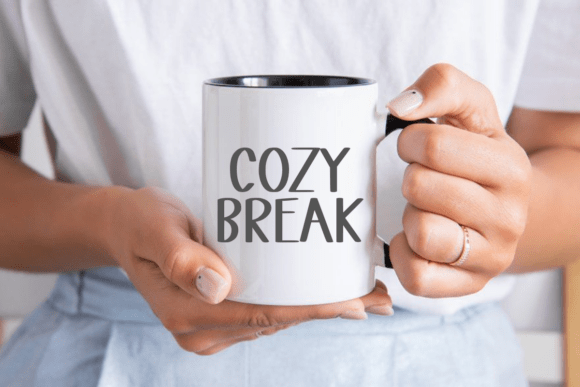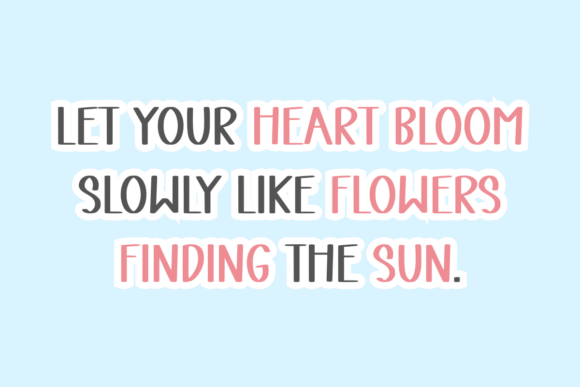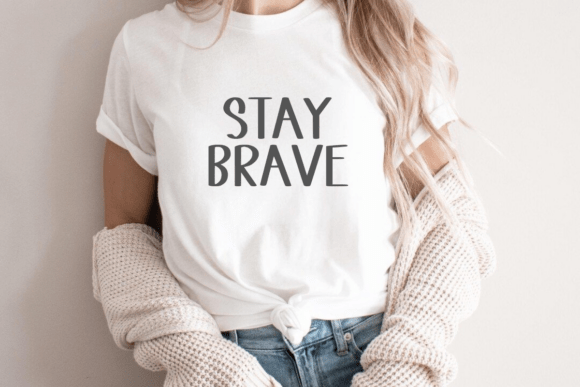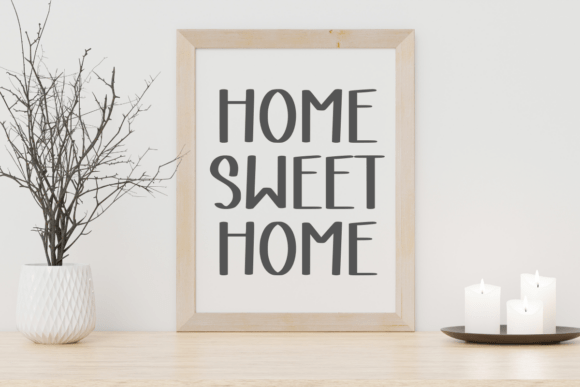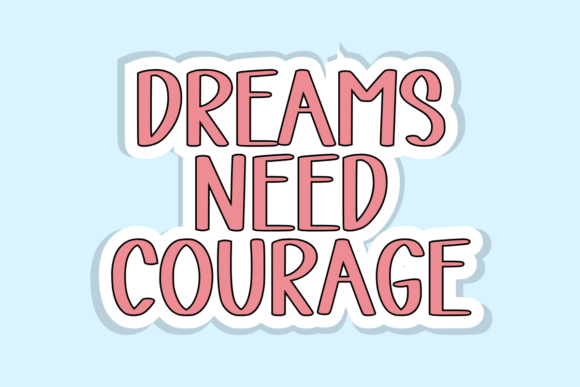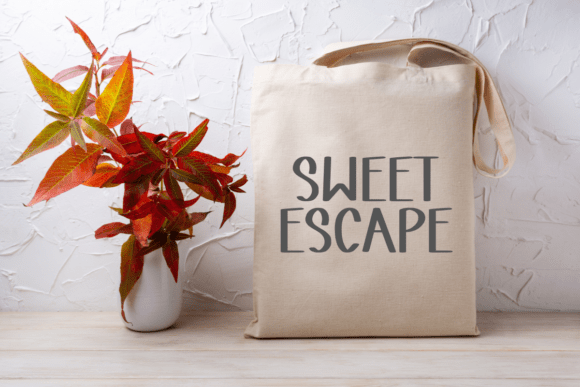
Introducing Heartbeat Handwritten Font: The Perfect Choice for Crafty Designs
Are you a crafter, designer, or DIY enthusiast looking for a font that adds a personal touch to your projects? Look no further than Heartbeat Handwritten Font, a charming sans serif handwriting font that exudes a soft, friendly, and natural look. In this article, we’ll dive into the features and benefits of this lovely font, and explore how it can elevate your craft projects, planners, stickers, and more.
A Warm Handcrafted Feeling
Heartbeat Handwritten Font is designed to bring a warm, handcrafted feeling to your designs. Its simple strokes and smooth curves create a gentle, approachable aesthetic that’s perfect for a variety of applications. Whether you’re creating craft projects, planners, stickers, kids’ worksheets, classroom printables, or DIY designs, this font is sure to add a touch of personality and whimsy.
Perfect for Crafting Moms and Designers
Crafting moms and designers will love Heartbeat Handwritten Font for its adorable handwritten style and versatility. This font is ideal for creating a range of projects, from quotes and greeting cards to kids’ labels, coloring pages, worksheets, bullet journals, scrapbooks, and playful graphic projects. With Heartbeat Handwritten Font, you can add a personal touch to your designs and make them stand out.
Ease of Use
One of the best things about Heartbeat Handwritten Font is its ease of use. The font’s simple strokes and smooth curves make it easy to cut using popular cutting machines like Cricut and Silhouette. This means you can quickly and easily create custom designs for your craft projects, without spending hours on complicated cutting or editing.
Applications for Heartbeat Handwritten Font
So, what can you create with Heartbeat Handwritten Font? The possibilities are endless! Here are some ideas to get you started:
• Quotes and posters: Add a personal touch to your inspirational quotes and posters with this charming font.
• Greeting cards: Create custom greeting cards for special occasions, like birthdays, holidays, and more.
• Kids’ labels: Use Heartbeat Handwritten Font to create fun and colorful labels for kids’ projects, folders, and more.
• Coloring pages: Add a touch of whimsy to your coloring pages with this adorable font.
• Worksheets: Create engaging and interactive worksheets for kids with Heartbeat Handwritten Font.
• Bullet journals: Use this font to add a personal touch to your bullet journal or planner.
• Scrapbooks: Create beautiful and personalized scrapbooks with Heartbeat Handwritten Font.
• Playful graphic projects: Use this font to add a touch of personality to your graphic projects, like posters, flyers, and more.
Why Choose Heartbeat Handwritten Font?
So, why choose Heartbeat Handwritten Font over other fonts? Here are just a few reasons:
• Unique and charming aesthetic: Heartbeat Handwritten Font has a one-of-a-kind look that’s sure to make your designs stand out.
• Versatility: This font can be used for a wide range of projects, from craft projects to graphic designs.
• Ease of use: Heartbeat Handwritten Font is easy to cut and edit, making it perfect for designers and crafters of all levels.
• Personal touch: This font adds a warm, handcrafted feeling to your designs, making them feel more personal and engaging.
Author Nuhatype
In conclusion, Heartbeat Handwritten Font is a charming and versatile font that’s perfect for crafty designers, moms, and DIY enthusiasts. With its soft, friendly, and natural look, this font is sure to add a personal touch to your projects and make them stand out. Whether you’re creating craft projects, planners, stickers, or graphic designs, Heartbeat Handwritten Font is the perfect choice. So why wait? Download Heartbeat Handwritten Font today and start creating beautiful, personalized designs that showcase your unique style.